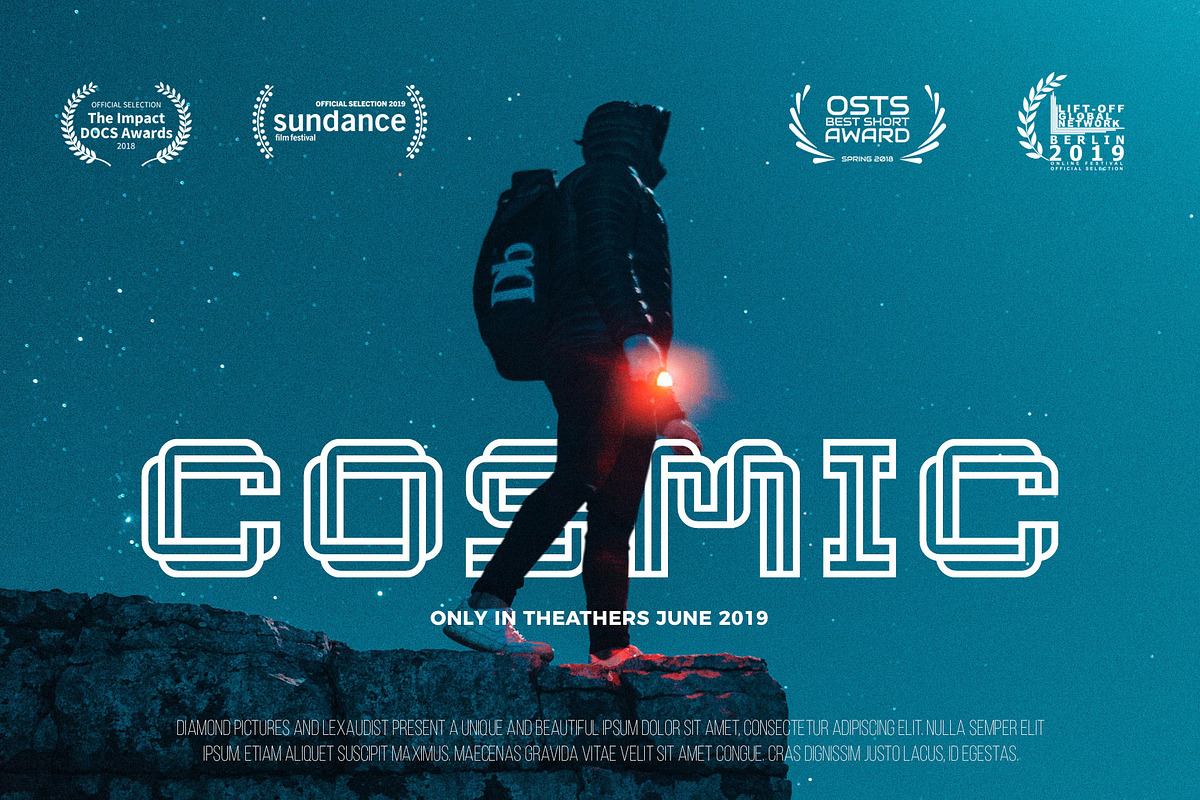
Linee Font - Scifi & Modern Look Free Download
Linee Font - Scifi & Modern Look Free Download is a futuristic, sleek typeface designed with science fiction and modern aesthetics in mind. Featuring clean lines and geometric shapes, this font is perfect for creating futuristic logos, sci-fi movie posters, tech branding, game design, and any project that requires a bold, high-tech appearance. Its minimalistic and cutting-edge design gives your typography a sharp and modern edge.
Using the Linee Font - Scifi & Modern Look Free Download adds a sleek, technological vibe to your work. Whether you’re designing for a tech startup, creating promotional material for a sci-fi event, or working on digital content, this font ensures your designs have a clean, futuristic appeal.